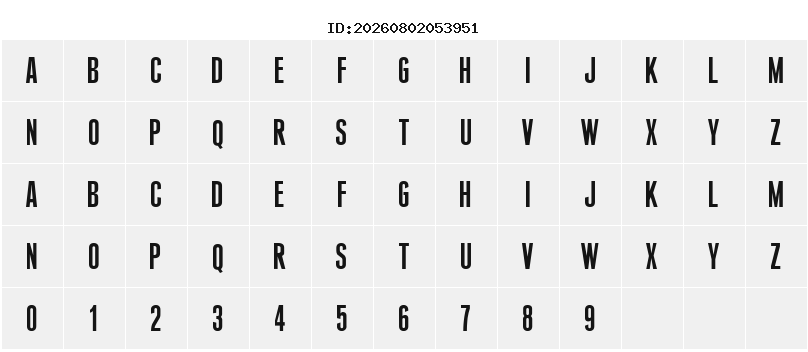
MLB Astros.ttf is a modern, elegant sans-serif font designed for ultimate readability and visual harmony. Perfect for branding, headlines, web design, and print materials.